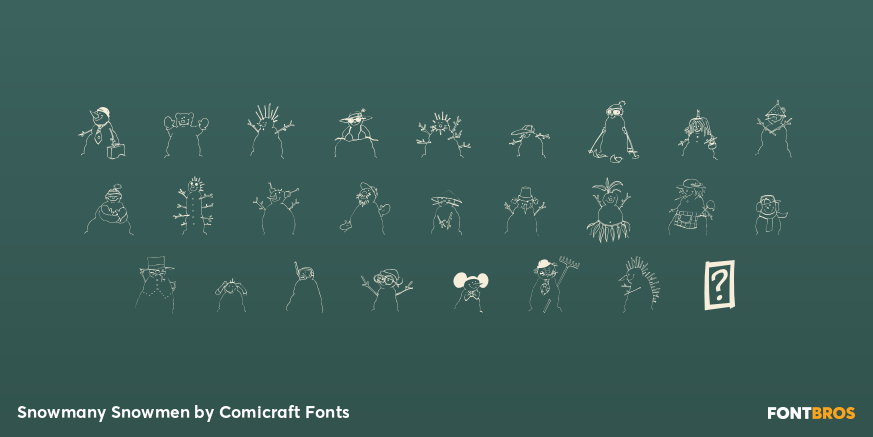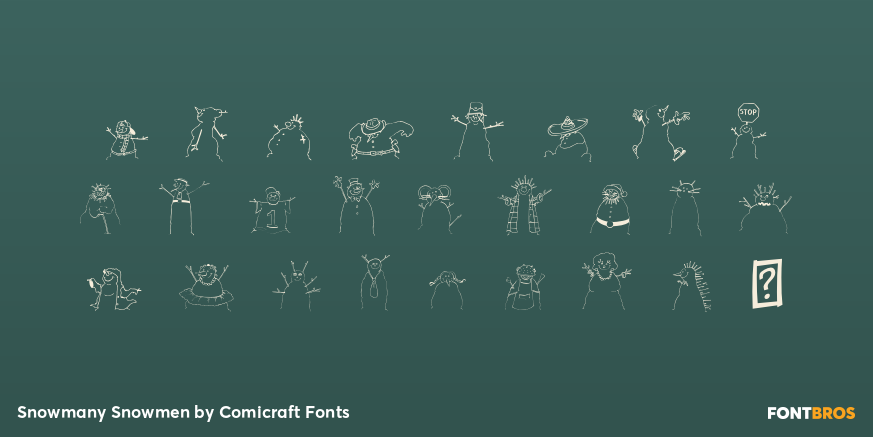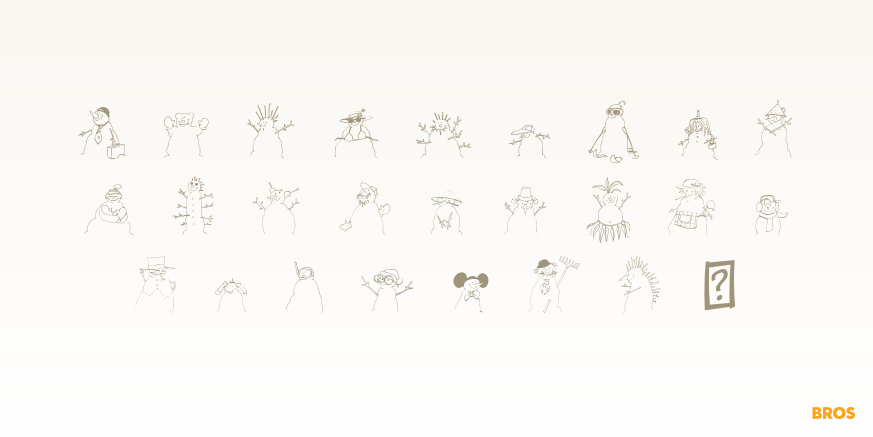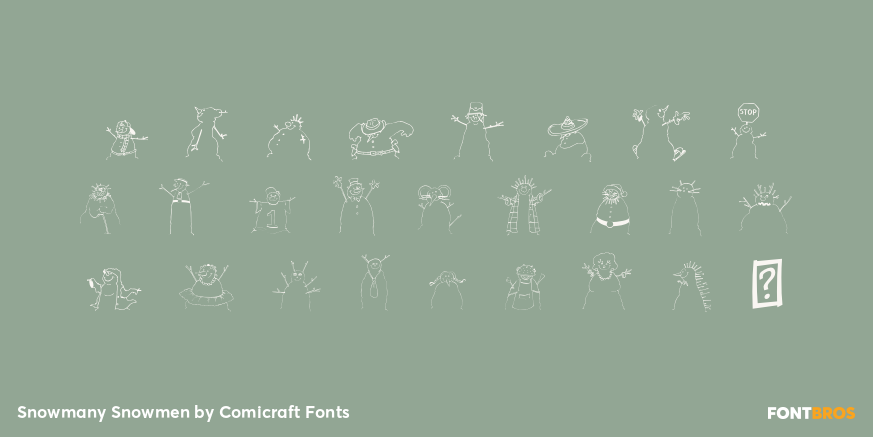
Snowmany Snowmen
Font Family by Comicraft Fonts
Snow, Snow, Thick, Thick Snow! Sweetly and simply illustrated by the lovely 'Lilou', Our Snowmany Snowmen font features fifty (count 'em) hilarious Snowmen. Perfect for creating Seasonal Greetings for homemade Christmas Cards, decorating your children's 'Thank You' letters -- or just print them out for your kids to color while Uncle Frank's shovelling snow out of the driveway!